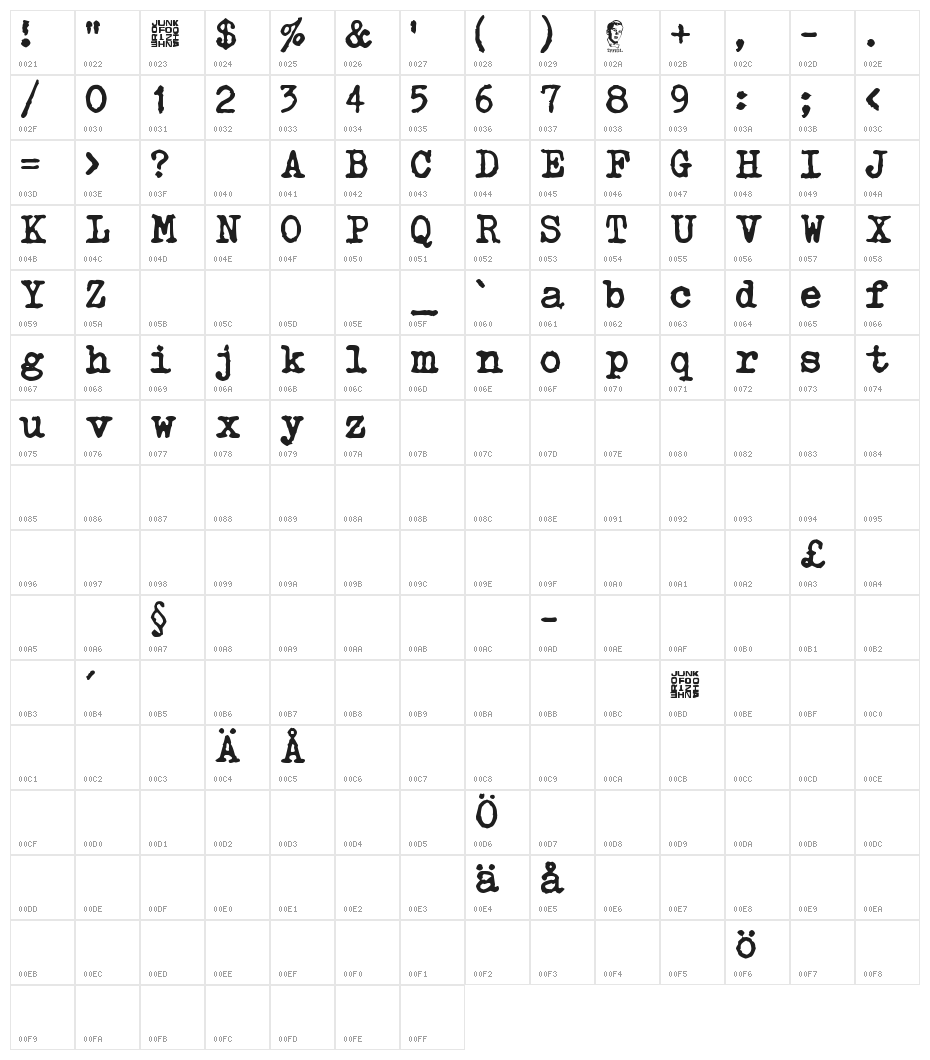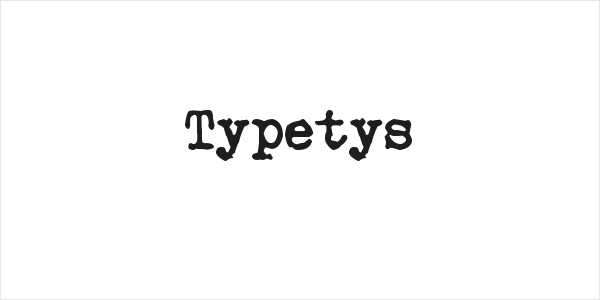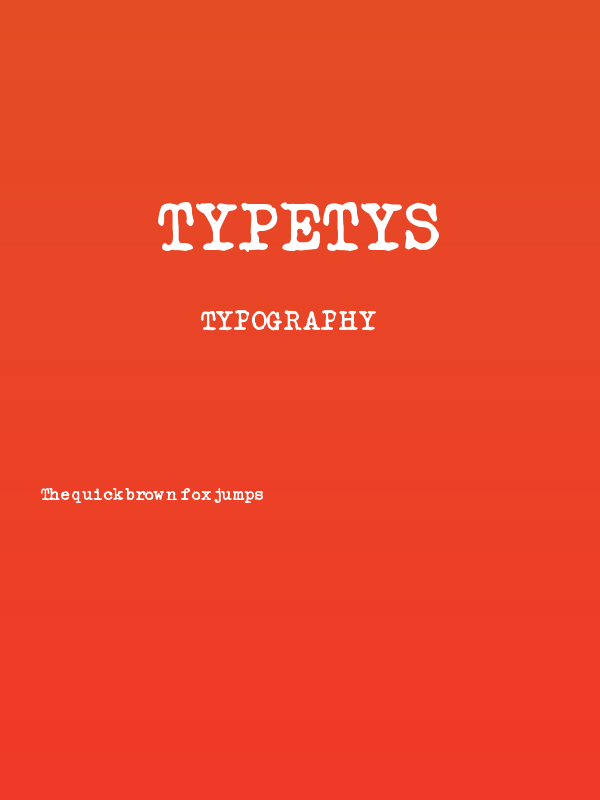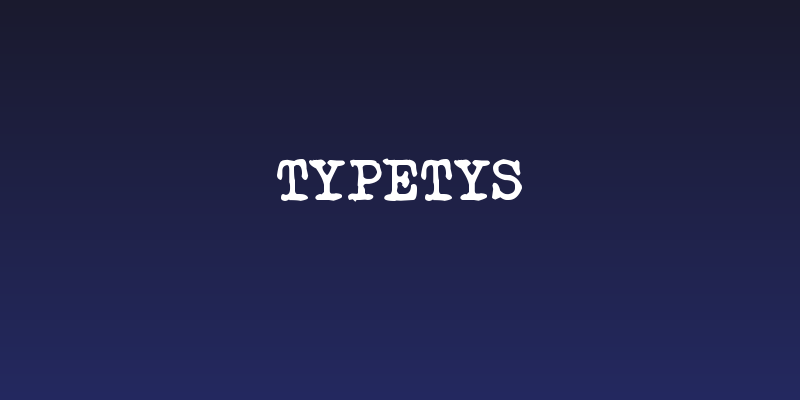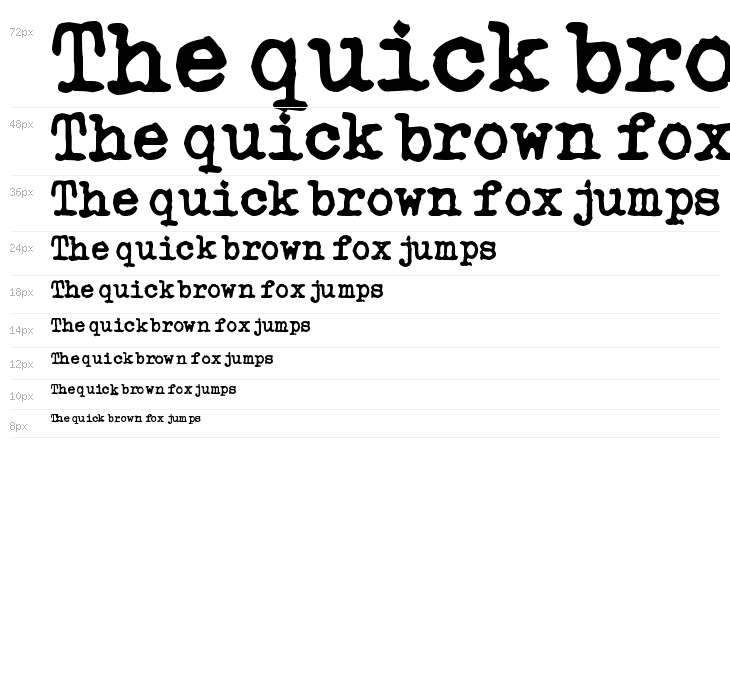
Typetys Font
Typetys Description
This font exhibits a rugged, distressed appearance, reminiscent of typewriter or vintage print styles. The characters are bold with irregular edges, giving them a handcrafted, organic feel. The uppercase and lowercase letters maintain a consistent style, with a slightly uneven baseline that adds to the rustic charm. Numbers and special characters follow the same aesthetic, ensuring a cohesive look across all glyphs. The font's unique texture and bold presence make it stand out, ideal for projects requiring a touch of nostalgia or a raw, authentic vibe.
| Proposed Projects | Ideal for vintage-themed designs, posters, album covers, and branding that requires a rugged, authentic look. |